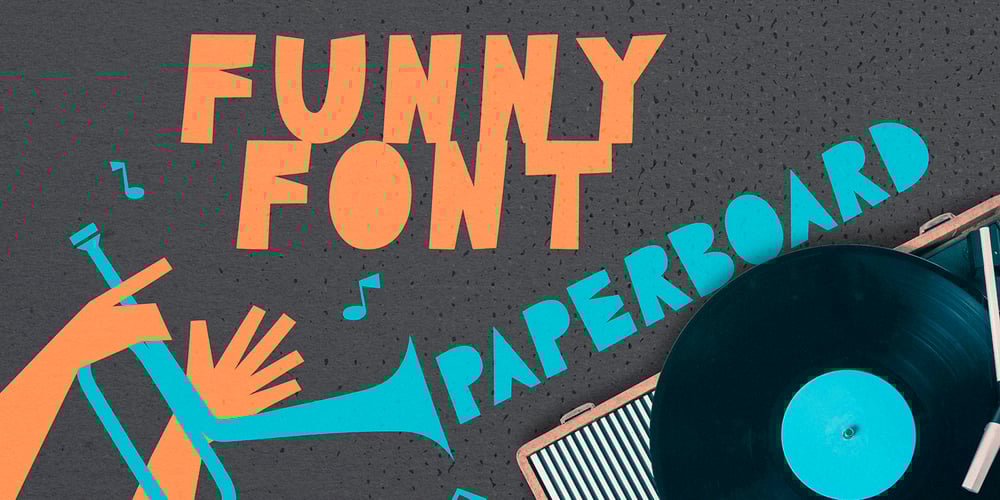
Paperboard Font Family was designed by Anastasia Kuznetsova and published by Anastasia Kuznetsova. Paperboard contains 1 styles and family package options. I present my funny and very cute font “Paperboard”Great for sweet greeting cards and invitations, for playful branding and quotes, for unusual packaging and much more!This font is unique and lightweight:)Font Features• character set A-Z;• 1 languages (English)It is recommended to use it in Adobe Illustrator or Adobe PhotoshopMade with love ♡Thank you for stopping by, and I wish you a creative day!